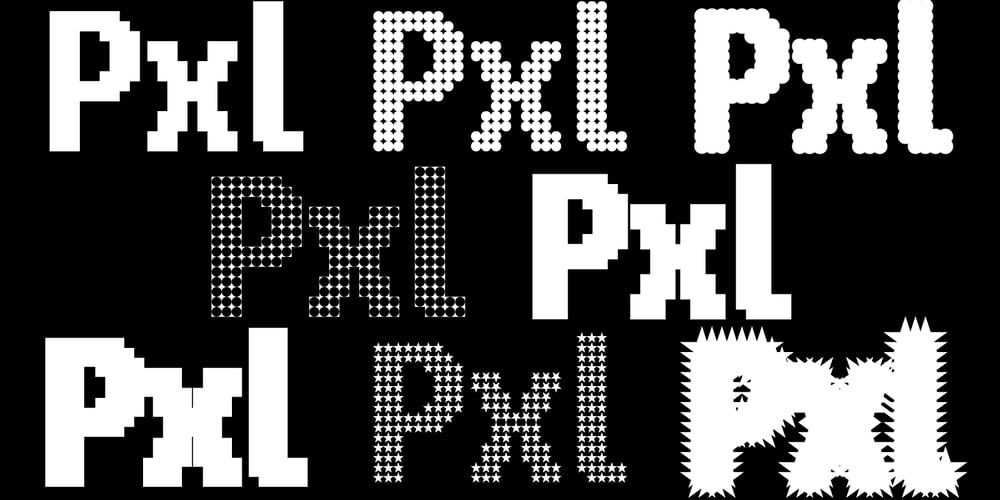
PIXEL Pattern Font Family was designed by Manuel Viergutz and published by TypoGraphicDesign. PIXEL Pattern contains 9 styles and family package options. The typeface PIXEL pattern is designed from 2021 for the font foundry Typo Graphic Design by Manuel Viergutz.The display typeface is inspired in the past and present.8 font-styles (Square, Circle, Square Flicker, Circle Cloud, Square Bold, Square Fat, Star, Star Spike) with 830 glyphs (Adobe Latin 3) incl. 100+ decorative extras like icons, arrows, German Capital Sharp S, dingbats, emojis, symbols, geometric shapes, catchwords, decorative ligatures (type the word #LOVE for ♥︎ or #SMILE for ☺ as OpenType-Feature dlig) and stylistic alternates (8 stylistic sets).For use in logos, magazines, posters, advertisement plus as webfont for decorative headlines. The font works best for display size.Have fun with this font & use the DEMO-FONT (with reduced glyph-set) FOR FREE! ■ Font Name: PIXEL pattern■ Font Styles: 8 font-styles (Square, Circle, Square Flicker, Circle Cloud, Square Bold, Square Fat, Star, Star Spike) + DEMO (with reduced glyph-set) ■ Font Category: Display for headline size ■ Font Format: .ttf (for Print) + .woff (for Web) ■ Glyph Set: 830 glyphs (Latin 3 incl. decorative extras like icons) ■ Language Support: 93 languages: Afrikaans, Albanian, Asu, Basque, Bemba, Bena, Breton, Catalan, Chiga, Colognian, Cornish, Croatian, Czech, Danish, Dutch, Embu, English, Esperanto, Estonian, Faroese, Filipino, Finnish, French, Friulian, Galician, Ganda, German, Gusii, Hungarian, Inari Sami, Indonesian, Irish, Italian, Jola-Fonyi, Kabuverdianu, Kalenjin, Kamba, Kikuyu, Kinyarwanda, Latvian, Lithuanian, Lower Sorbian, Luo, Luxembourgish, Luyia, Machame, Makhuwa-Meetto, Makonde, Malagasy, Maltese, Manx, Meru, Morisyen, Northern Sami, North Ndebele, Norwegian Bokmål, NorwegianNynorsk, Nyankole, Oromo, Polish, Portuguese, Quechua, Romanian, Romansh, Rombo, Rundi, Rwa, Samburu, Sango, Sangu, Scottish Gaelic, Sena, Serbian, Shambala, Shona, Slovak, Soga, Somali, Spanish, Swahili, Swedish, Swiss German, Taita, Teso, Turkish, Upper Sorbian, Uzbek (Latin), Volapük, Vunjo, Walser, Welsh, Western Frisian, Zulu ■ Design Date: 2021 ■ Type Designer: Manuel Viergutz